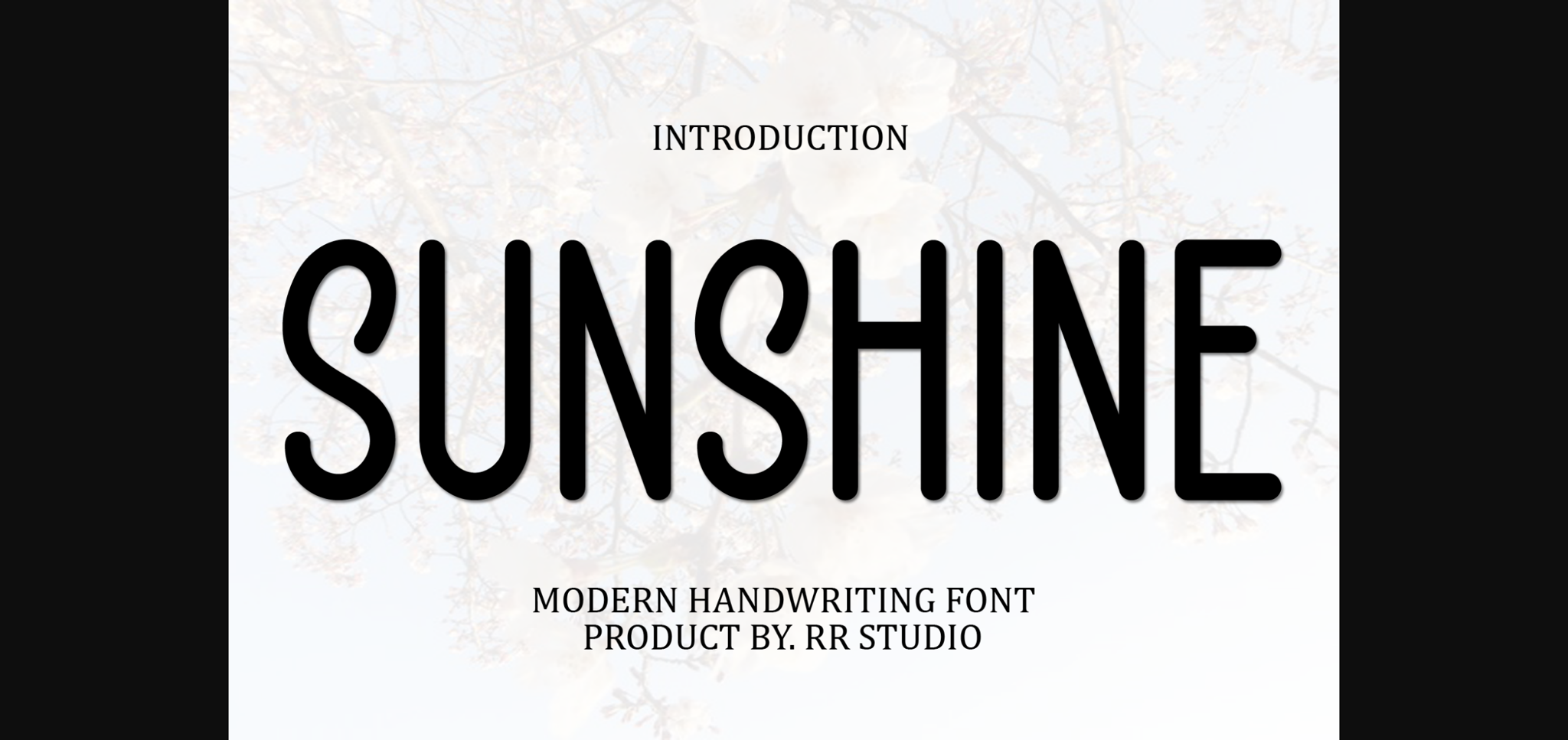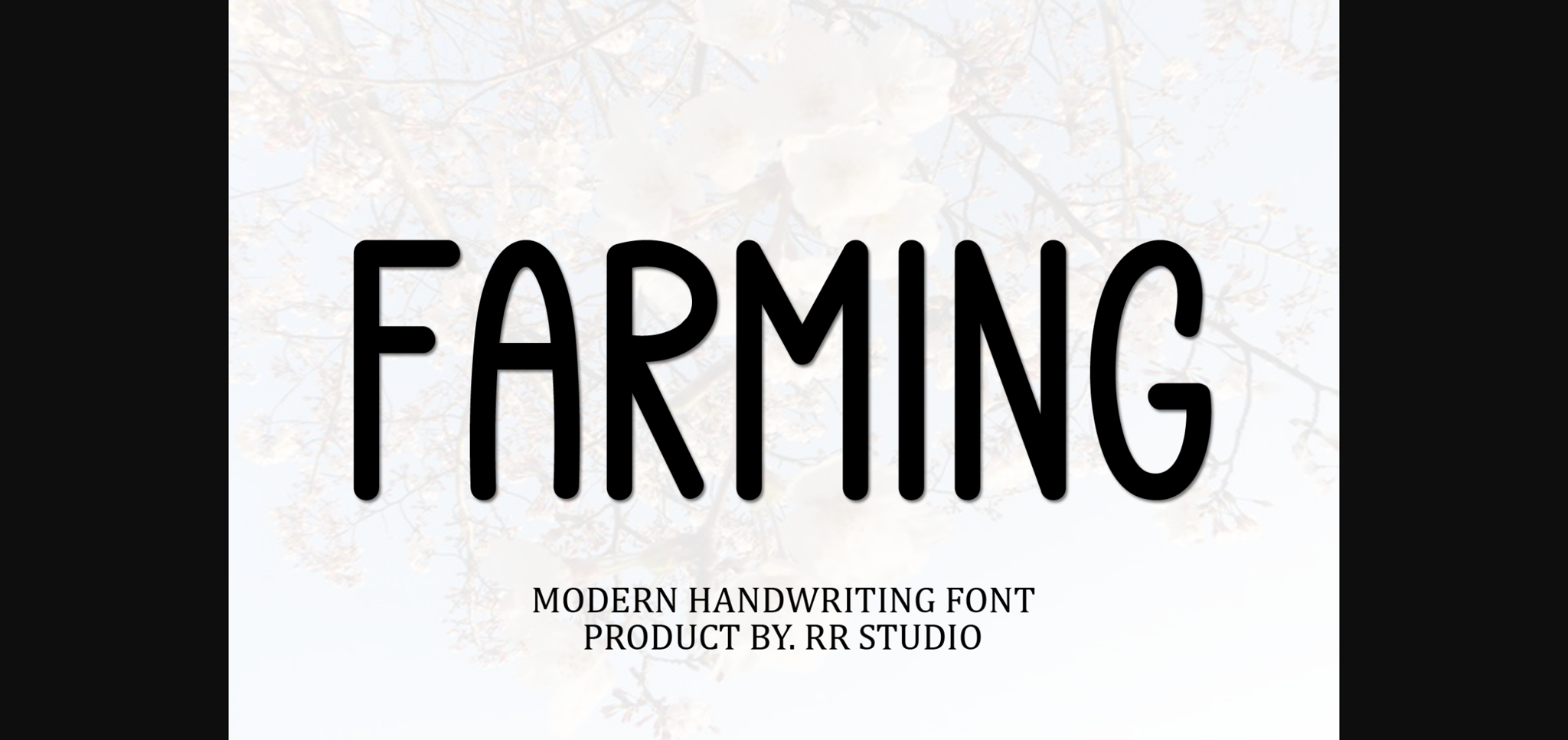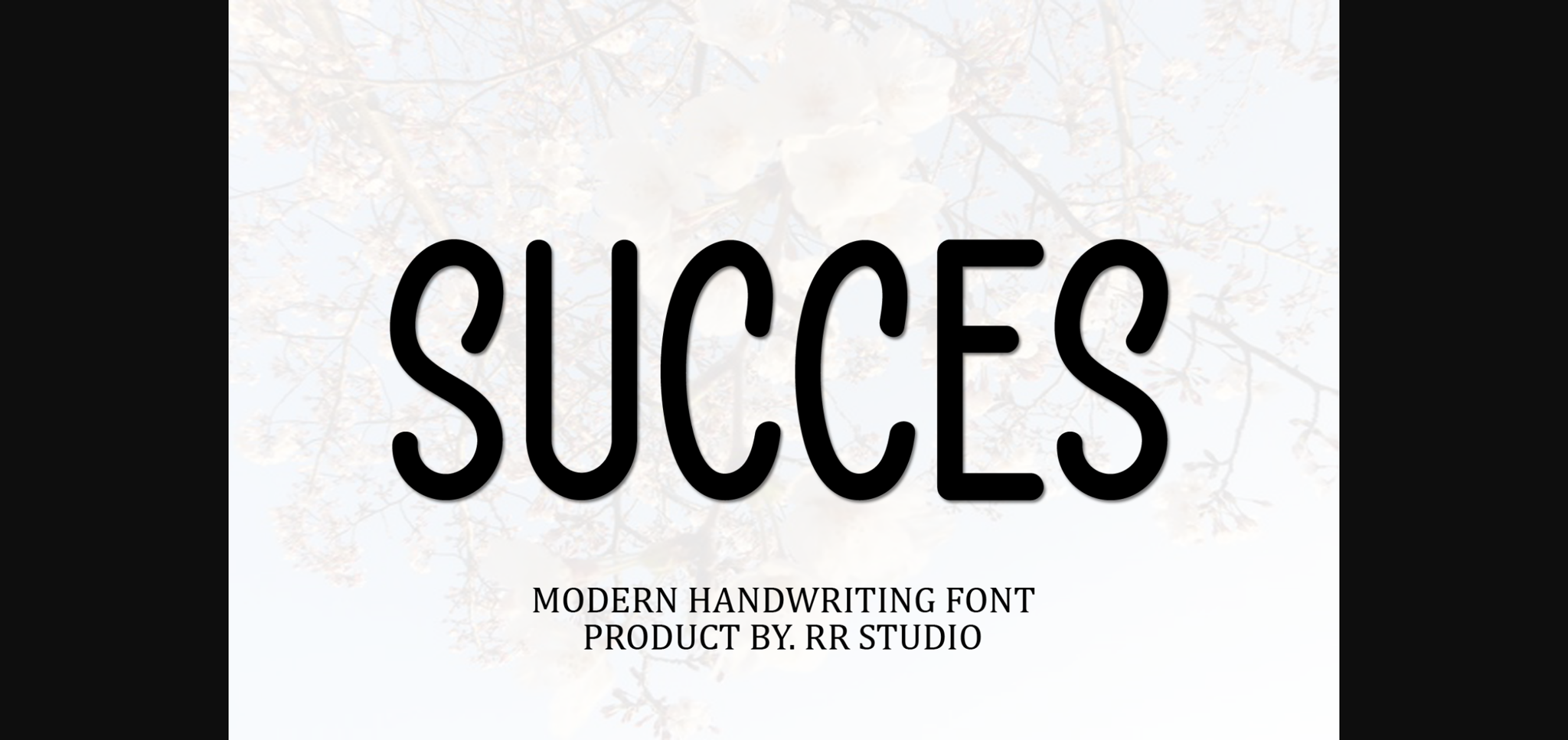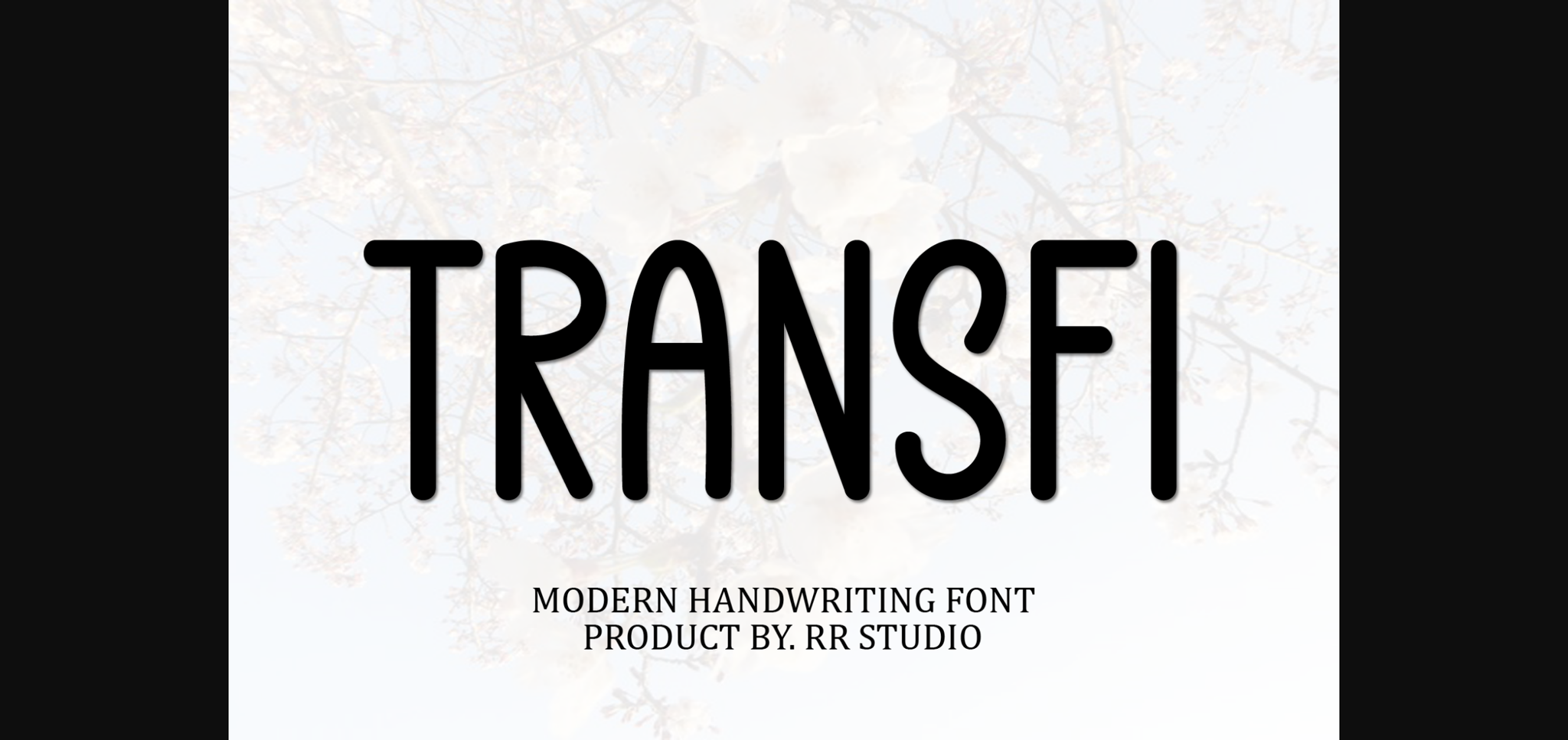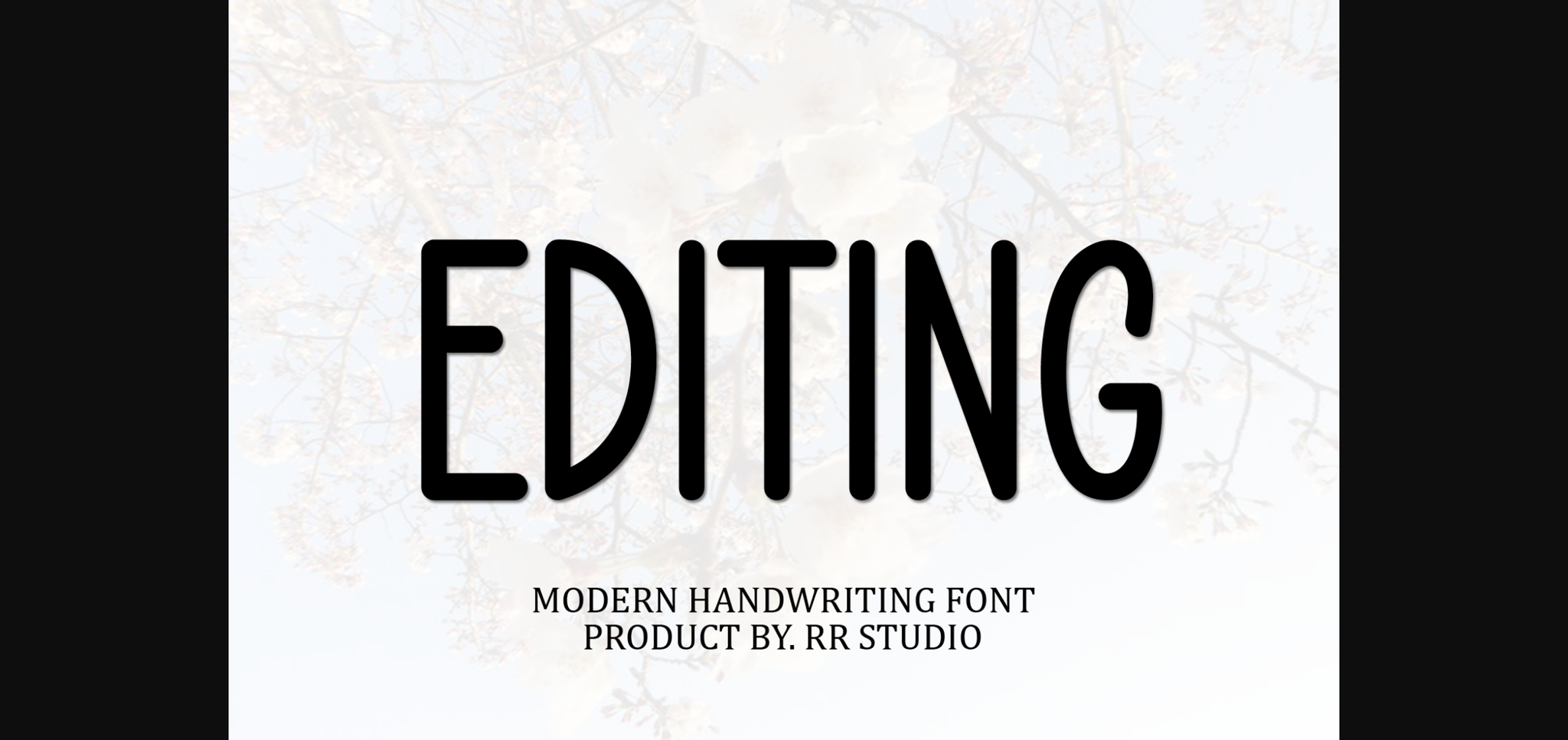
Sunshine Font
About Sunshine Font
Sunshine is a flowing, sleek, and trendy sans-serif font. Add it confidently to your crafty projects and enjoy the results!